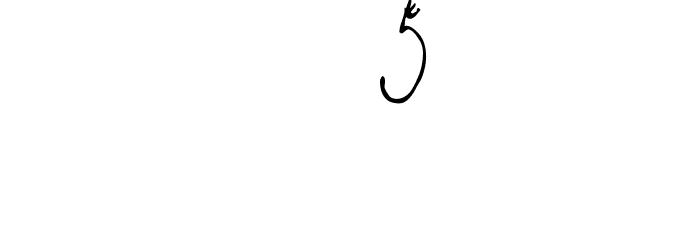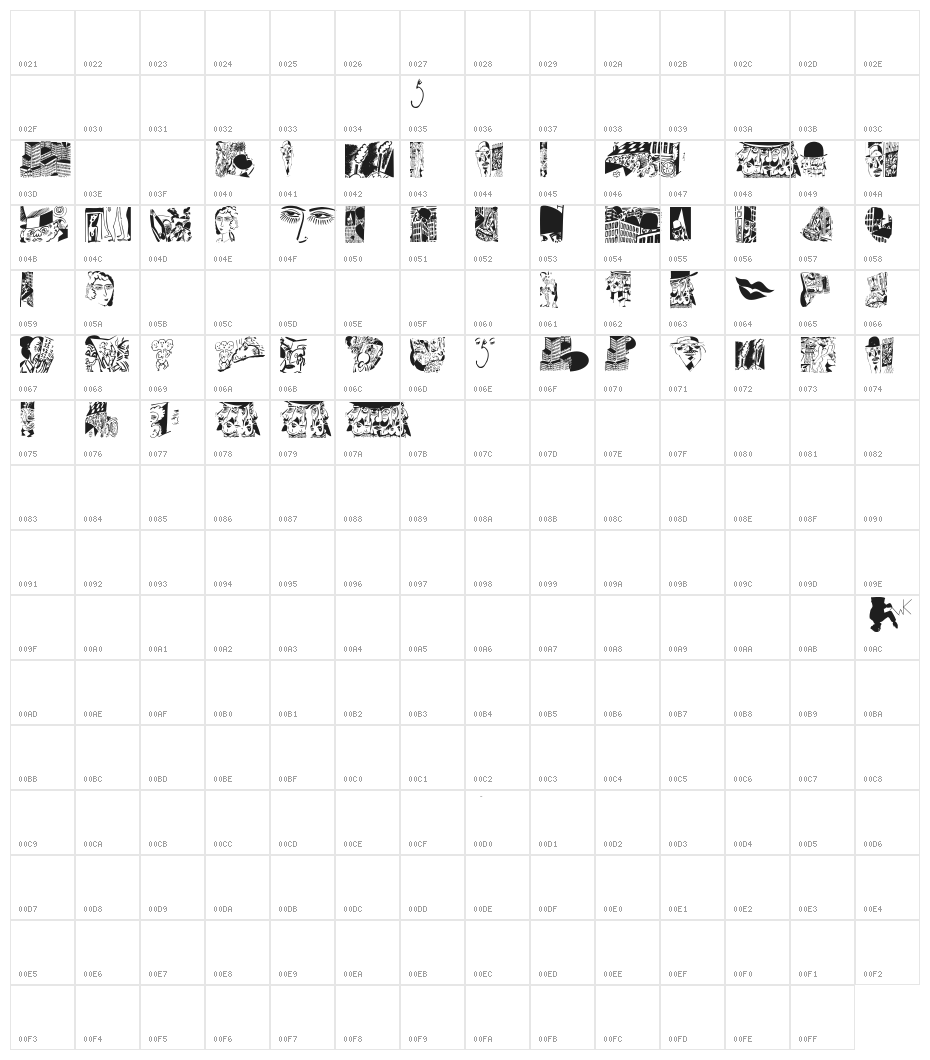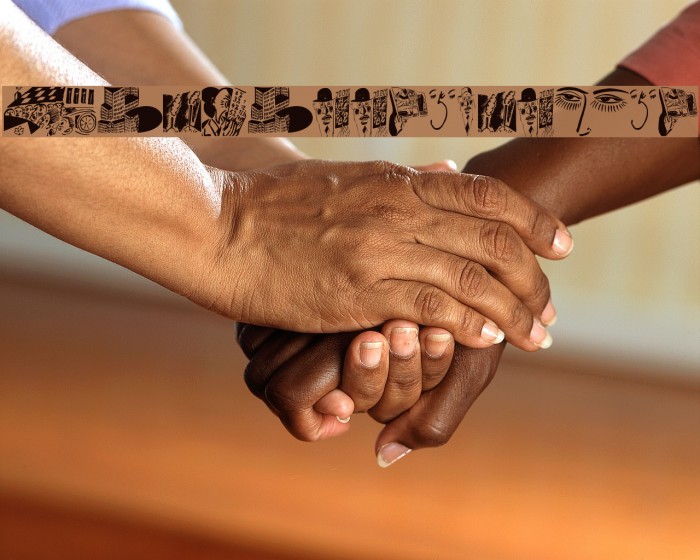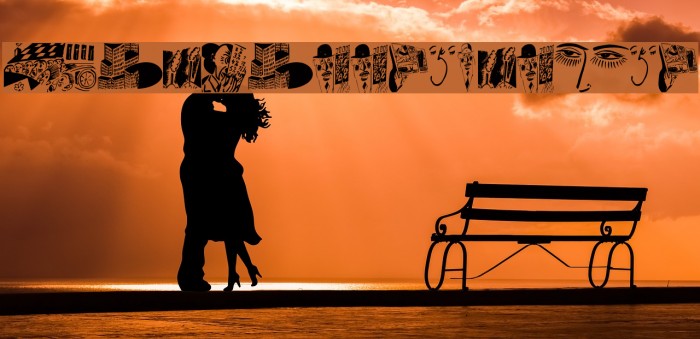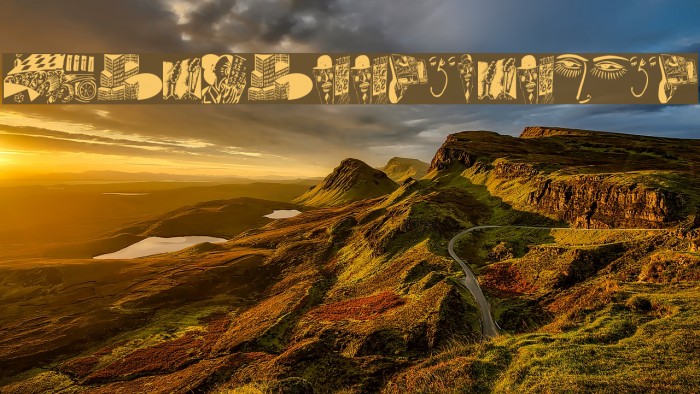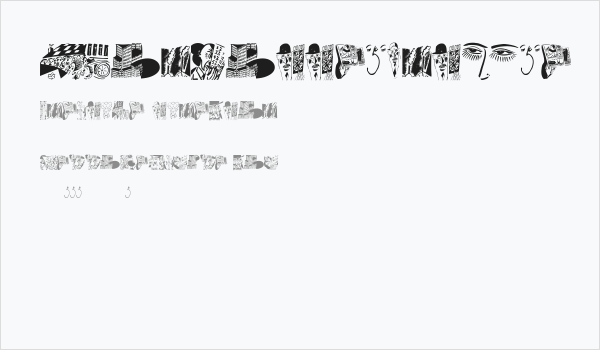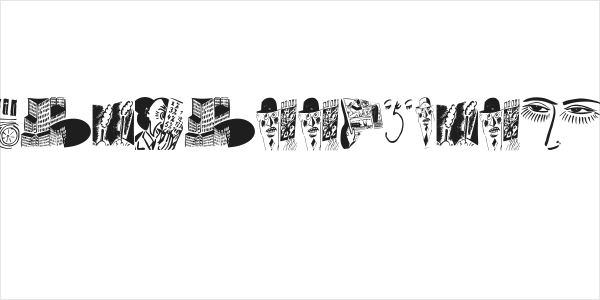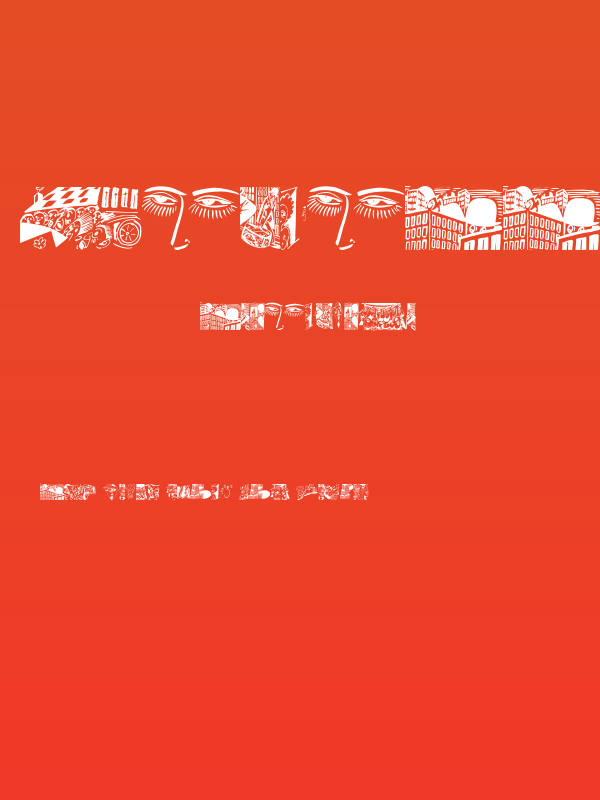
ForgottenArtOne Font
ForgottenArtOne Description
This font is a highly decorative and artistic typeface, featuring intricate illustrations within each character. Each letter and number is filled with detailed, abstract artwork that resembles a collage of various elements, including faces, buildings, and patterns. The font has a unique and eclectic style, making it stand out as a piece of art in itself. The characters are bold and visually striking, with a high level of detail that captures attention. This font is not designed for readability in body text but rather for artistic expression and visual impact.
| Overall Style | Artistic, Eclectic |
| Use Case | Logos, Posters, Artistic projects |
| Proposed Projects | Ideal for art projects, posters, album covers, and any creative work where visual impact is key. |